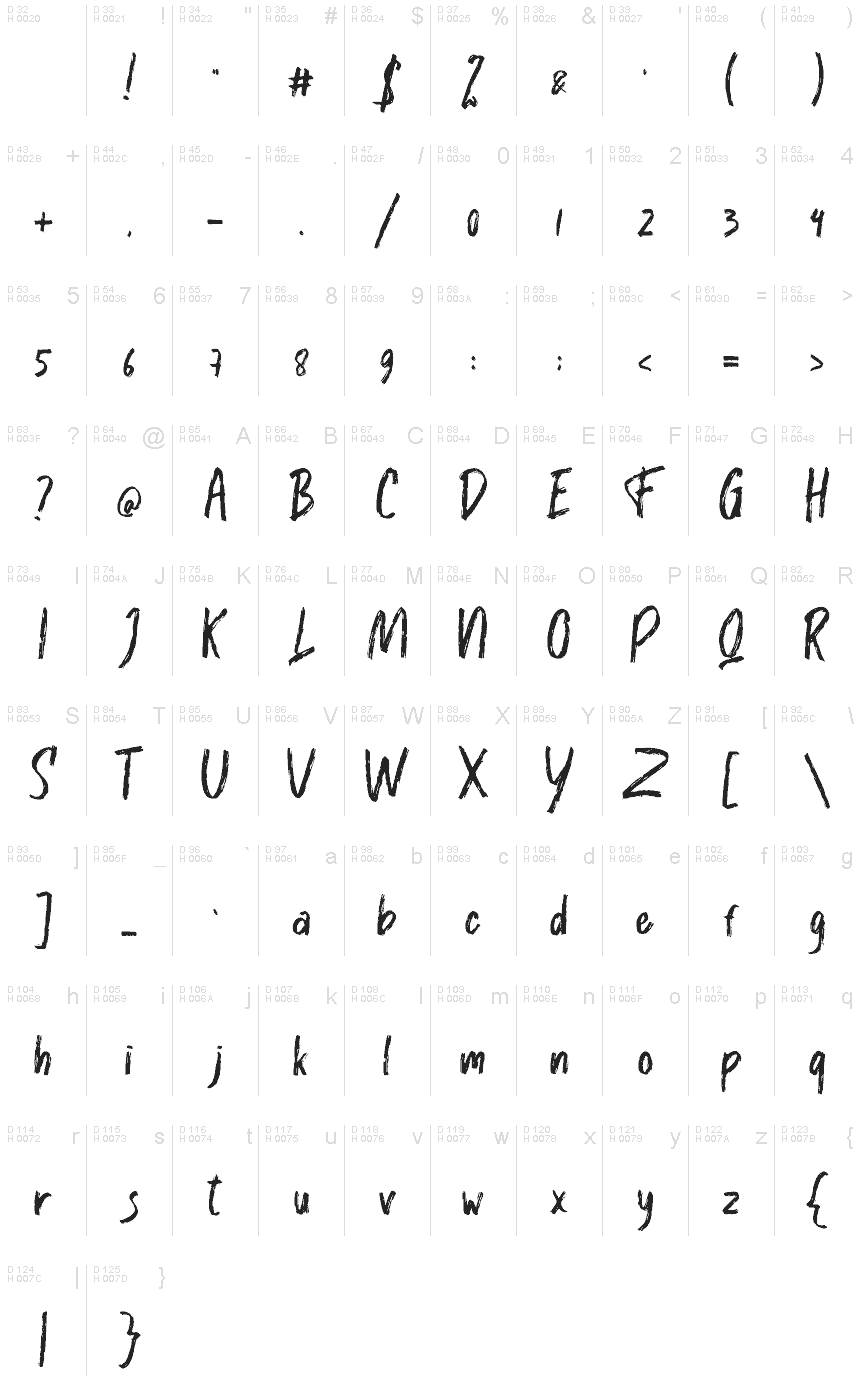
Rougthy
Rougthy is a playful, grunge brush script font created by Skiiller Studio. Its brush strokes are rough and dynamic, lending a touch of authenticity to any design. Try it with headlines for t-shirts or posters, book covers, labels, logo designs, and social media quotes.
Rougthy would also work wonderfully with packaging designs for a variety of products including cosmetics, clothing, food, etc. And with its striking features, it can also be used for logotype designs, headlines for magazines, branding designs, and decorative elements.